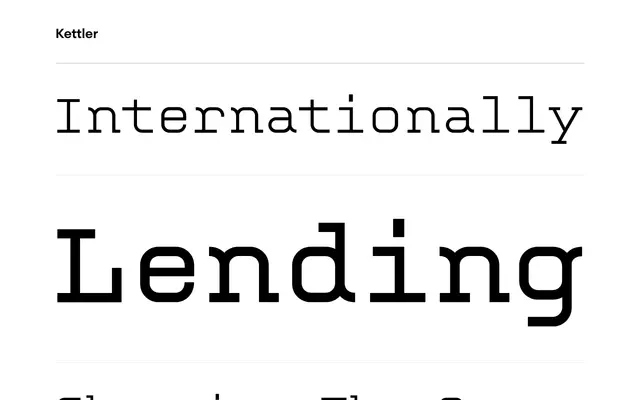
Kettler
Process Type Foundry · Eric Olson · 2002
A two-weight monospaced slab serif by Eric Olson, designed as a tribute to Howard 'Bud' Kettler's Courier with modernised curves.
Named in honour of Courier's designer Howard 'Bud' Kettler, this fixed-pitch typeface from 2002 pairs utilitarian slab serifs with contemporary curves. Two weights cover tabular data settings and headline use alike, making it a compact but versatile choice for type that needs the regularity of a monospace without the sterility of a pure technical face.
A monospaced typeface with utilitarian slab serifs, explicitly positioned as a tribute to Courier. The slab-serif detailing and fixed-pitch spacing place it firmly in the monospaced slab category.